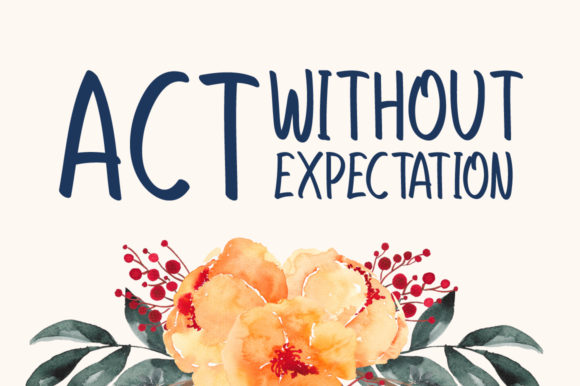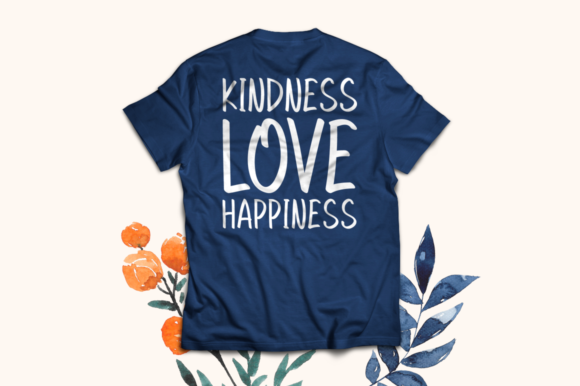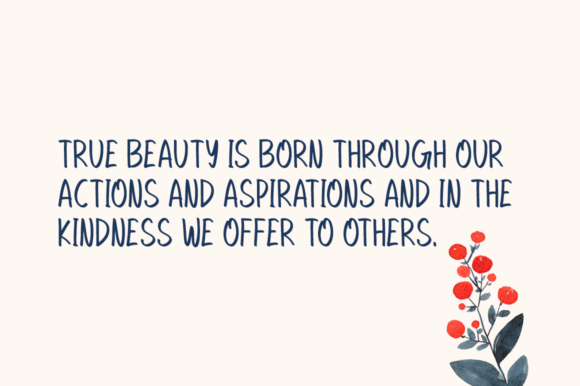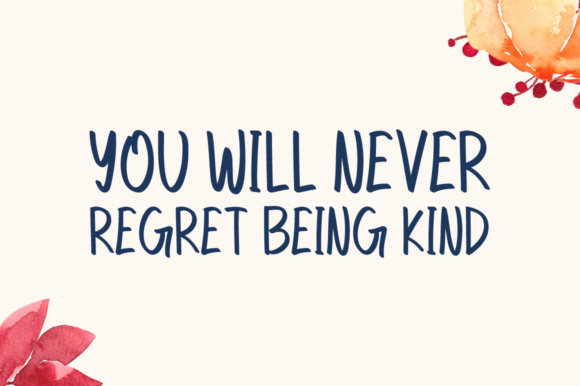
Introducing the Be Kind Font: A Sweet and Simple Handwritten Delight
Are you on the hunt for a font that exudes warmth, friendliness, and approachability? Look no further than the Be Kind font, a sweet and simple handwritten font that’s sure to capture the hearts of designers, crafters, and anyone looking to add a personal touch to their creative projects.
The Friendly Feel of Be Kind Font
Be Kind font boasts a friendly feel that’s incredibly versatile, making it perfect for a wide range of contexts. Whether you’re working on a creative project, designing a logo, or crafting a social media post, this font is sure to make your ideas stand out. Its approachable and gentle nature makes it an excellent choice for projects that require a personal touch, such as:
- Handmade crafts and DIY tutorials
- Invitations and party decorations
- Blog posts and articles
What Makes Be Kind Font So Special?
So, what sets Be Kind font apart from other fonts out there? Here are just a few reasons why designers and crafters are falling in love with this sweet and simple handwritten font:
- Unique Character: Be Kind font has a distinct, hand-crafted feel that’s sure to add a personal touch to any project.
- Easy to Read: The font’s clean and simple design makes it easy to read, even at smaller sizes.
- Versatile: Be Kind font works beautifully in a variety of contexts, from digital designs to print materials.
- Emotional Connection: The font’s friendly feel helps create an emotional connection with your audience, making your message more relatable and engaging.
How to Use Be Kind Font in Your Creative Projects
Now that you’re excited about Be Kind font, here are some ideas on how to incorporate it into your creative projects:
- Pair it with Other Fonts: Combine Be Kind font with other fonts to create a unique and visually appealing design.
- Use it for Headings and Titles: Be Kind font is perfect for headings and titles, adding a touch of personality to your text.
- Add it to Your Social Media Graphics: Use Be Kind font to create engaging social media graphics that stand out from the crowd.
- Create a Logo: Design a custom logo using Be Kind font, perfect for branding and marketing materials.
Tips and Tricks for Working with Be Kind Font
To get the most out of Be Kind font, here are some tips and tricks to keep in mind:
- Experiment with Colors: Try pairing Be Kind font with different colors to create a unique and eye-catching design.
- Play with Size: Experiment with different font sizes to create visual interest and hierarchy in your design.
- Mix and Match: Combine Be Kind font with other design elements, such as images and textures, to create a visually appealing design.
In conclusion, Be Kind font is a sweet and simple handwritten font that’s sure to capture the hearts of designers and crafters. Its friendly feel and versatility make it perfect for a wide range of contexts, from creative projects to branding and marketing materials. With its unique character, easy readability, and emotional connection, Be Kind font is an excellent choice for anyone looking to add a personal touch to their designs.